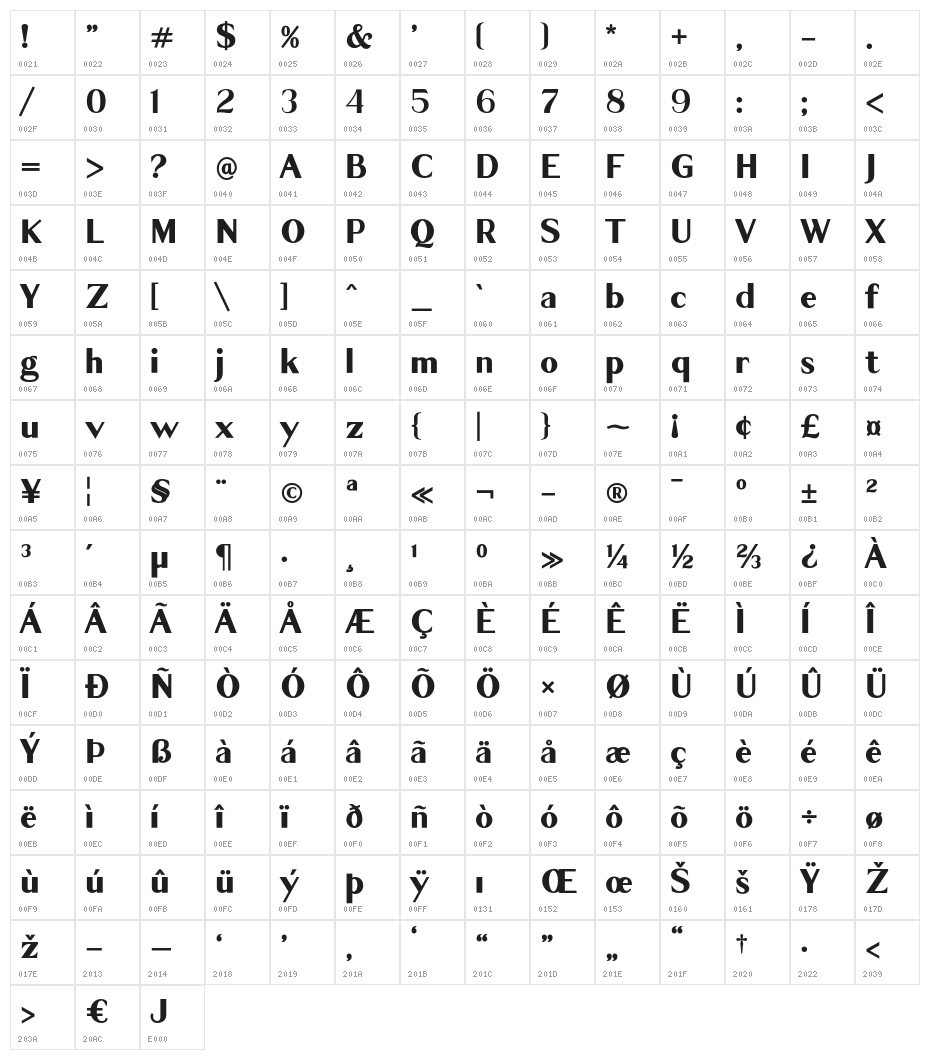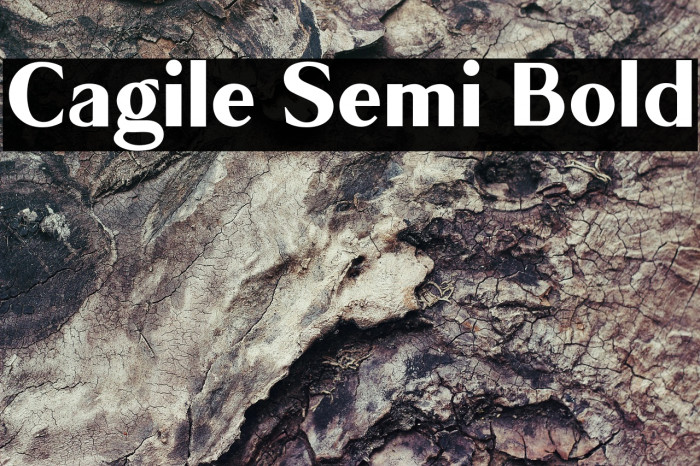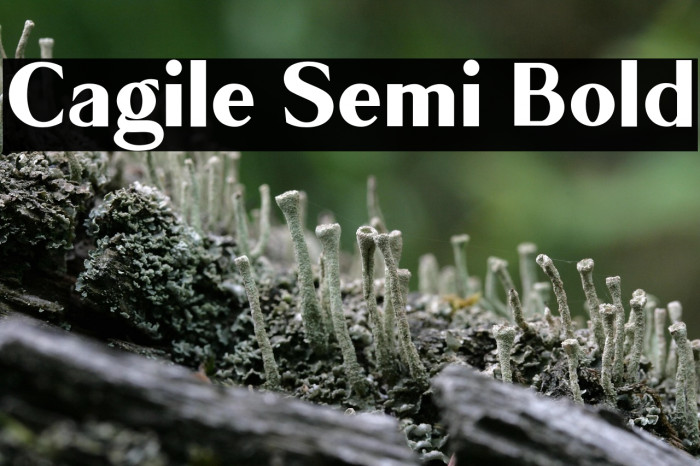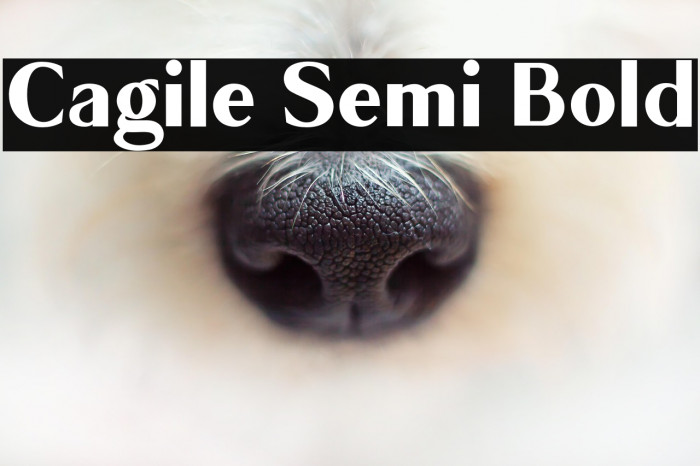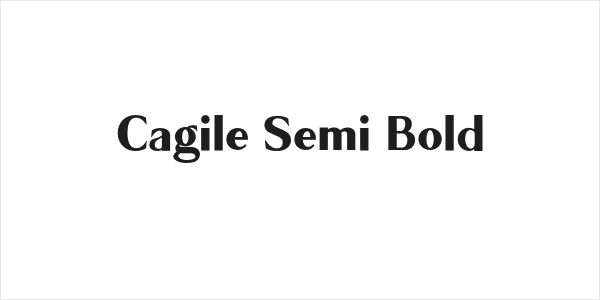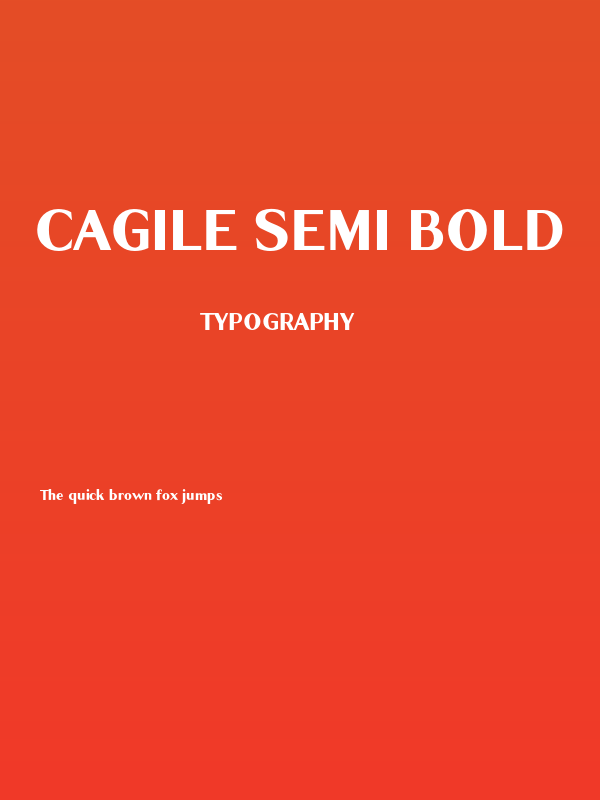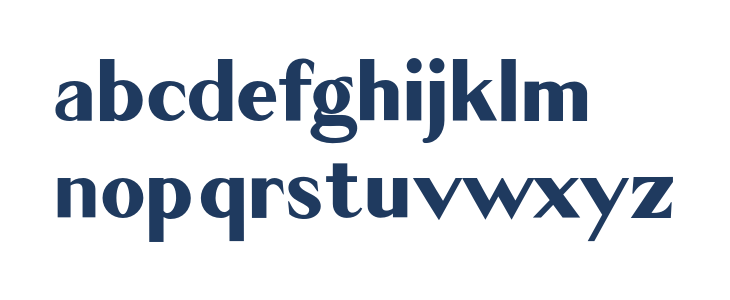
Cagile Semi Bold Font
Cagile Semi Bold Description
This font features a bold and assertive style, characterized by its thick strokes and strong presence. The uppercase letters are particularly striking, with a uniform height and width that convey a sense of stability and confidence. The lowercase letters maintain a consistent weight, ensuring readability while adding a touch of elegance. The numerals are clear and distinct, making them suitable for both display and text purposes. Special characters are well-defined, enhancing the font's versatility. Overall, this font combines modern aesthetics with classic elements, making it suitable for a variety of design projects.